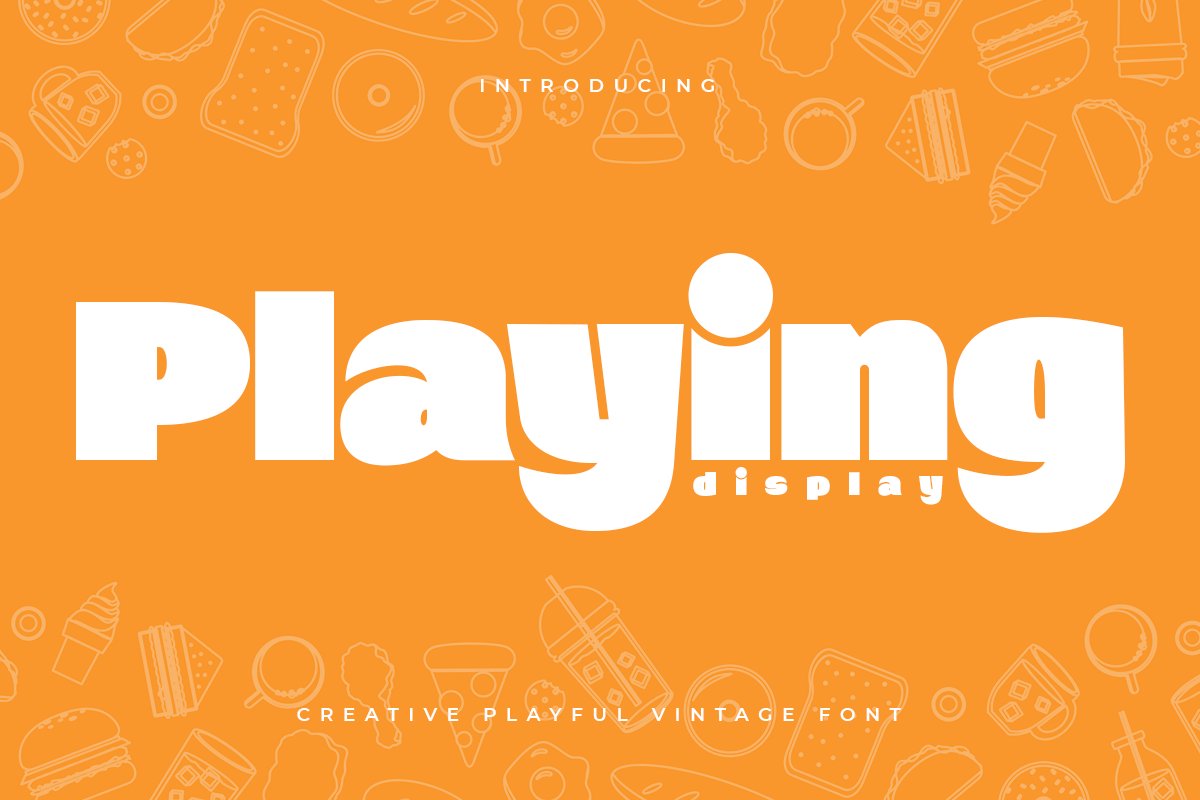
Playing
-Creative Playful Vintage Font
Playing
Playing, Creative Playful Vintage Font is a fun and playful cute typeface. It is perfect for logotype, flyer, greeting cards, packaging, book cover, printed quotes, headings, etc.